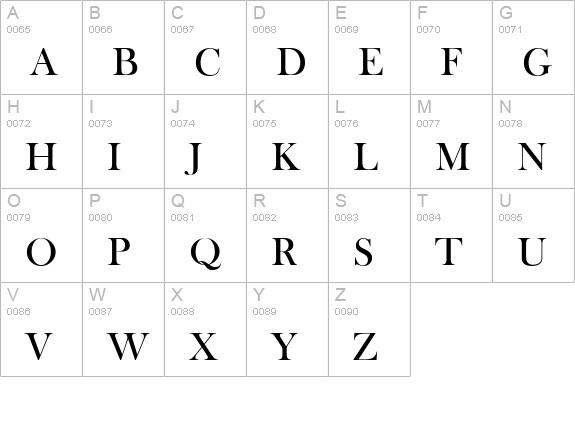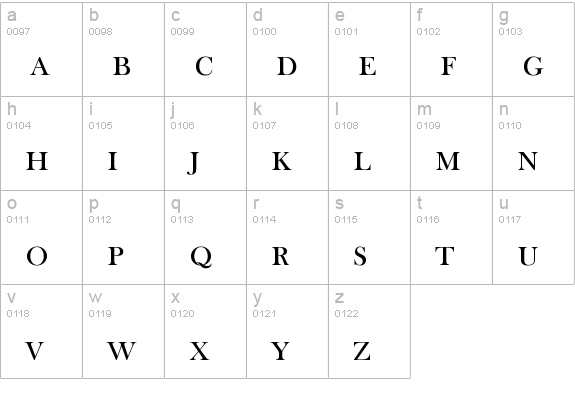
Baskerville-Old-Face-Caps-Regular Font Details
Baskerville-Old-Face-Caps-Regular is the standard, neutral variant in the Baskerville typeface family \xE2\x80\x94 well suited to general body text, paragraphs, and standard typographic work.
Baskerville Old Face Caps Regular font exudes timeless elegance and sophistication with its classic yet modern design. This font features beautifully crafted capital letters that command attention and add a touch of refinement to any project. The clean lines and balanced proportions make it ideal for headings, titles, and other prominent text elements. What's even better is that Baskerville Old Face Caps Regular font is available for free download at FontsMarket.com. Now you can enhance your designs with this exquisite typeface without breaking the bank. Don't miss out on the opportunity to elevate your projects with the timeless charm of Baskerville Old Face Caps Regular font.